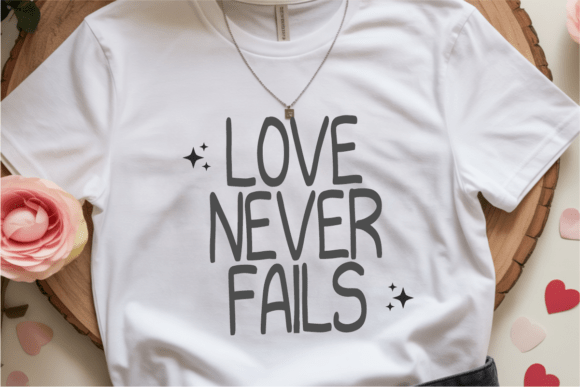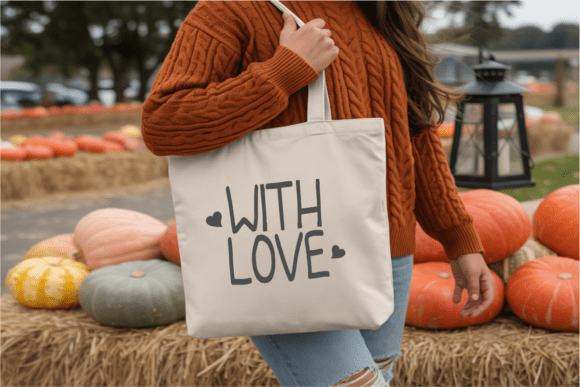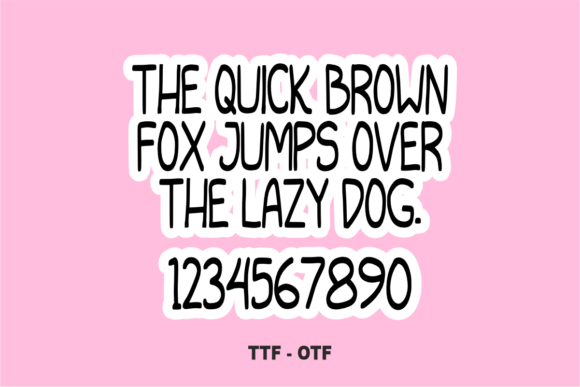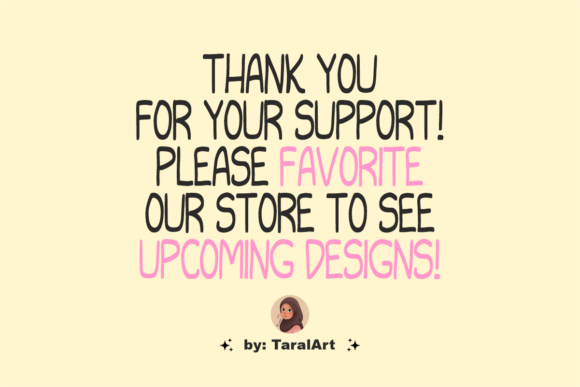
Introduction to Modern Holidays Font
Brighten up your seasonal projects with Modern Holidays, a delightful display font that captures the spirit of celebration with a contemporary twist.
This typeface features tall, clean, and charmingly irregular letterforms that suggest a playful, hand-drawn aesthetic The letters are bold yet light, offering a refreshing and stylish alternative to traditional holiday typography, making it perfect for cheerful and casual messaging.